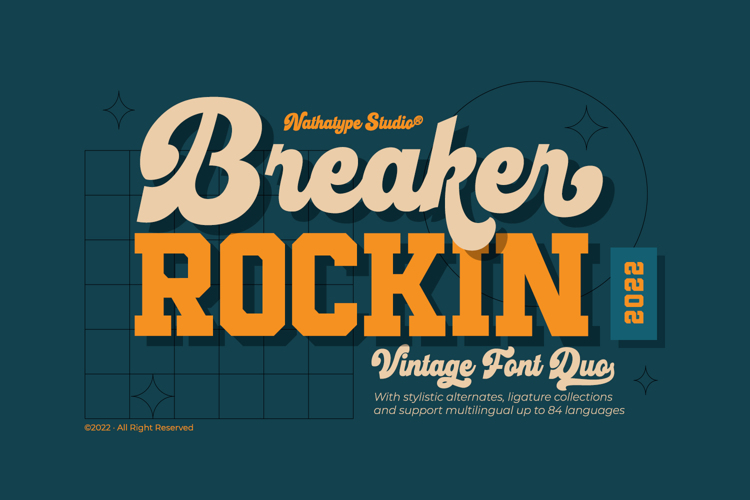
Breaker Rockin Font
With Breaker Rockin, you will not have problems in terms of lack font options. It is a versatile font duo that brings your design result vintage looks. The display font comes all in uppercase characters makes this font easy to read, while the script font shows bold and curvy strokes. You can mix and match this harmonious font duo to make gorgeous result in your design.
Features:
• Upper and lowercase letters
• Stylistic Sets
• Ligatures
• Numerals and Punctuations
• Multilingual Supports to reach a global audience